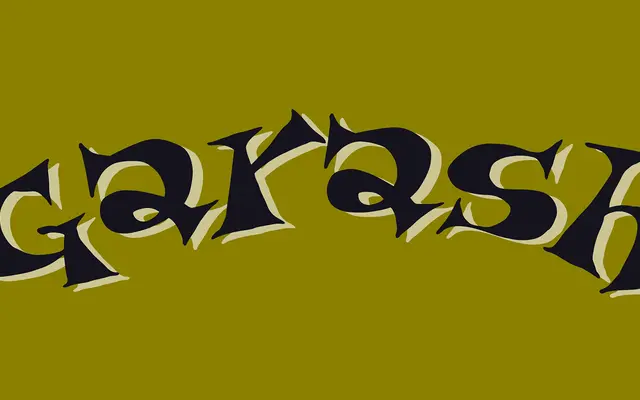
An ornate decorative script drawn from vintage Eastern European lettering traditions, suited to picture books and playful packaging.
Garash takes its cues from the ornamental hand-lettering styles found in Eastern European vintage design, translating that heritage into a display script with charm and visual weight. Its heavily decorated forms make it well-suited to children's publishing, toy branding and any application where an eye-catching, characterful headline is needed. The style leans nostalgic and fairytale-adjacent rather than formal or calligraphic.
Classified as script due to its hand-lettering origins; the decorative and ornate qualities inspired by vintage Eastern European lettering place it firmly in the decorative script subcategory.